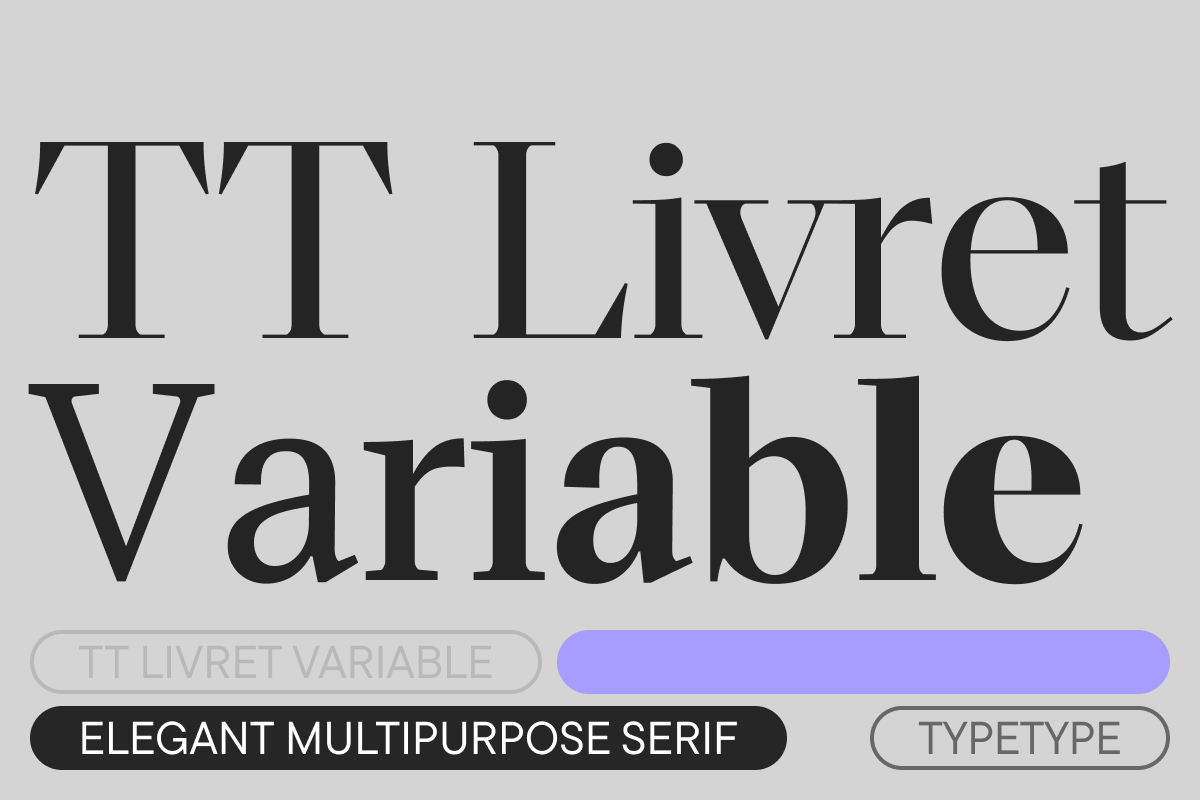
TT Livret Italic Variable
TT Livret is an elegant, modern, and functional serif featuring both text and expressive display subfamilies. TT Livret embodies the idea of a serif that is convenient to use in contemporary reality. This is a functional typeface, where the text font styles don’t distract from reading, and the display styles, on the contrary, attract attention.